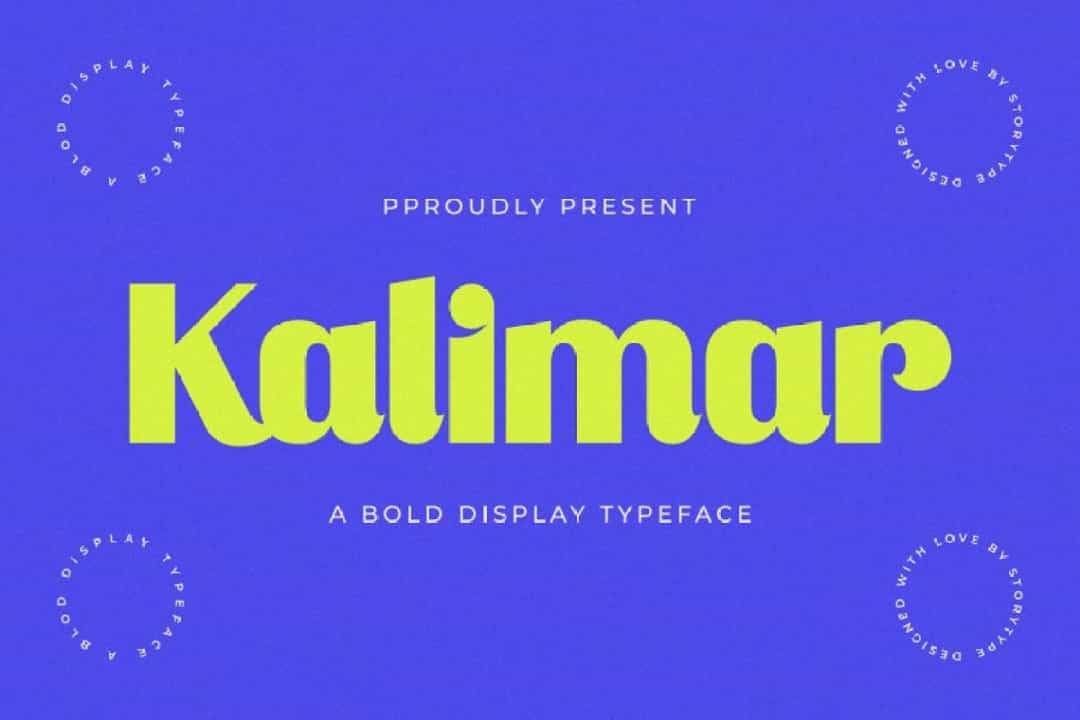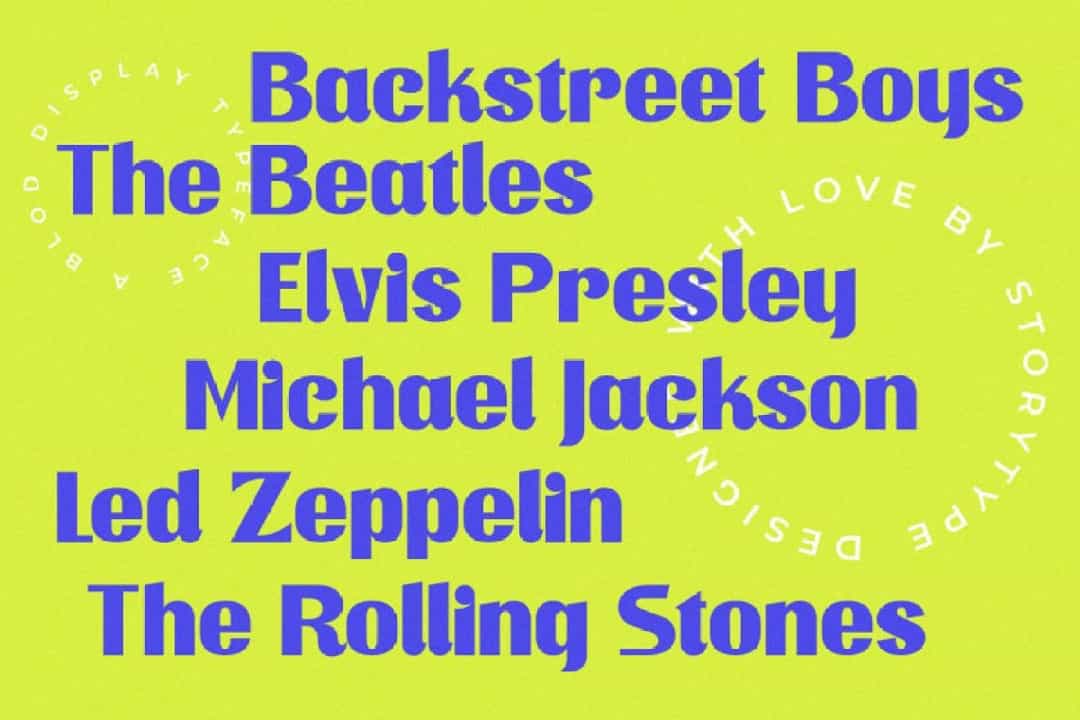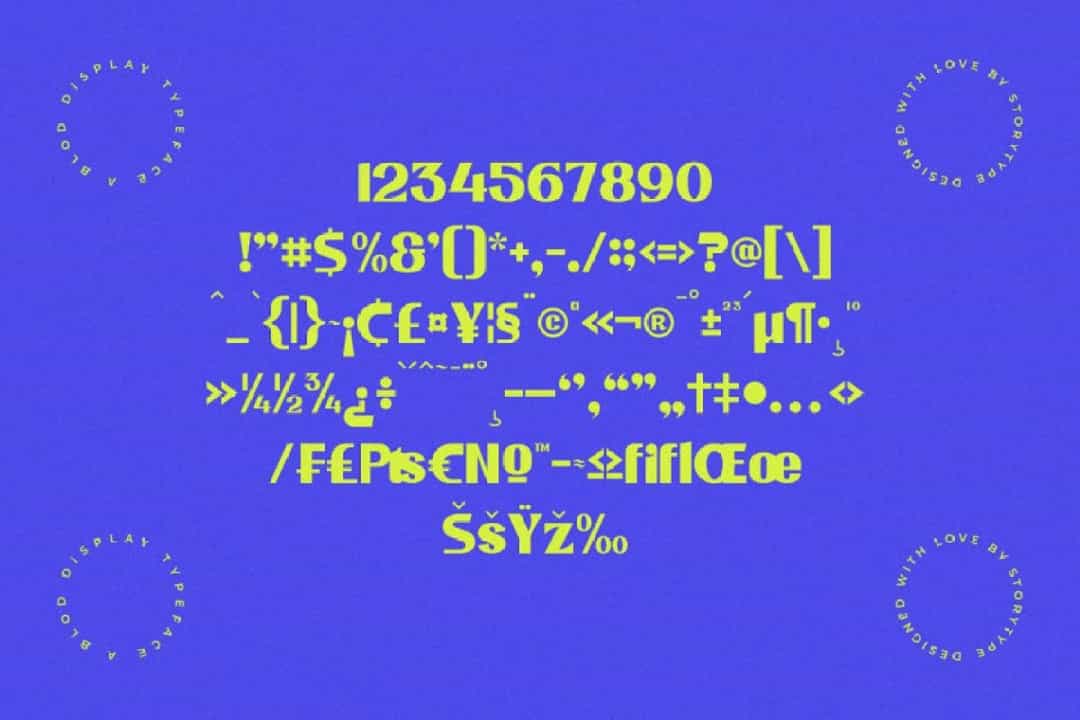
Discover Kalimar Font, part of the Serif Display collection—a versatile and unique font perfect for adding a personal touch to your projects. Download it for free and enjoy crafting designs with style, from invitations to social media posts. This font is available exclusively for personal use, giving you the freedom to create without limits. Unlock your creativity with Kalimar Font today!
Kalimar is an elegant and contemporary serif display font designed for use in projects of any kind, perfect for creating classy logos, book or film name designs, fashion magazine covers and articles, clothing brands and quotes, lettering work as well as lettering services – the possibilities are truly endless! This typeface makes a beautiful addition to your projects!